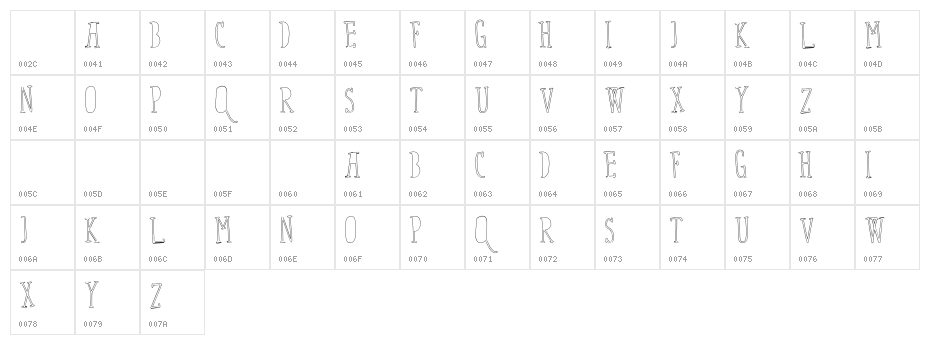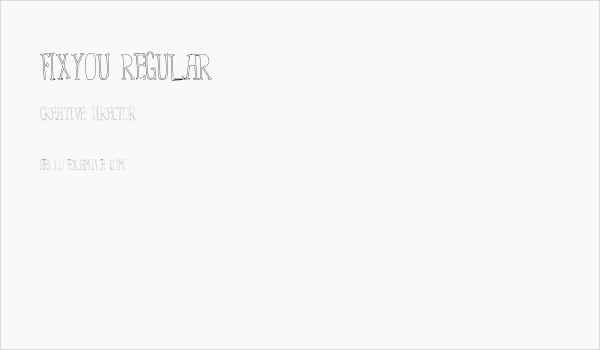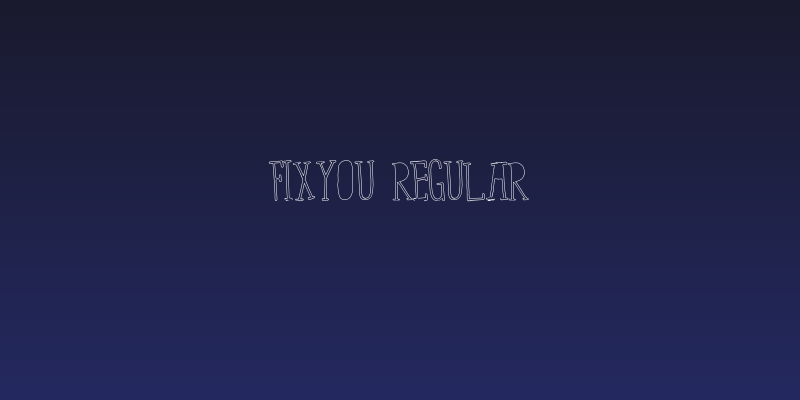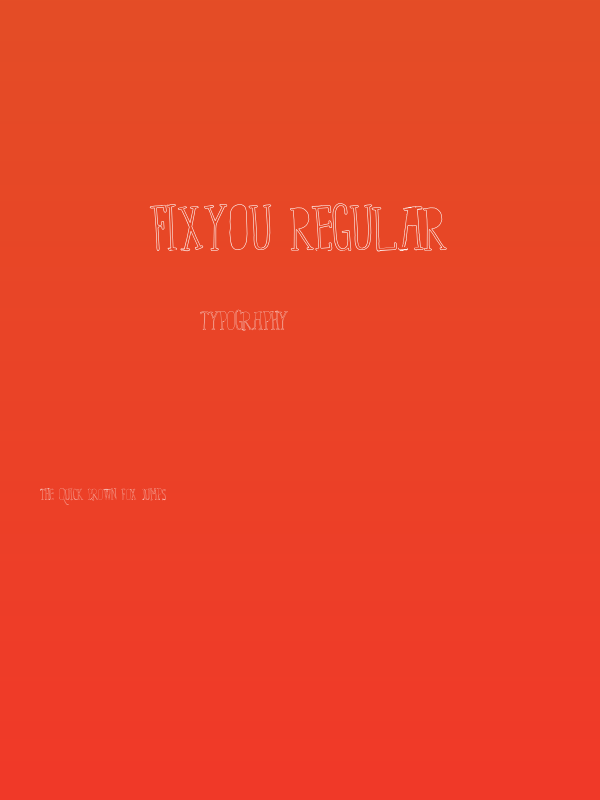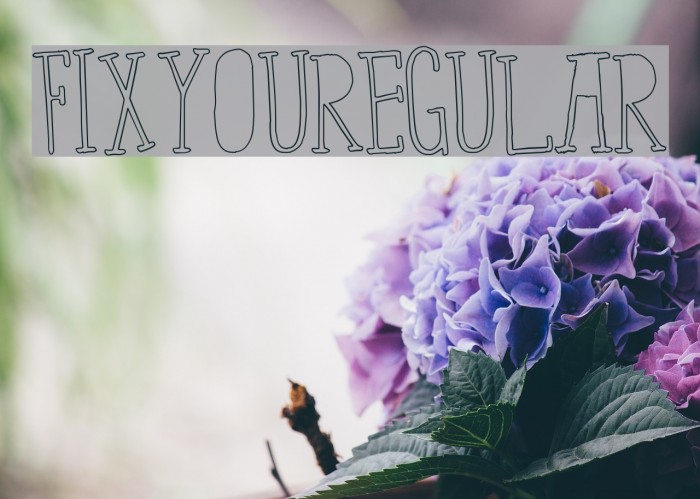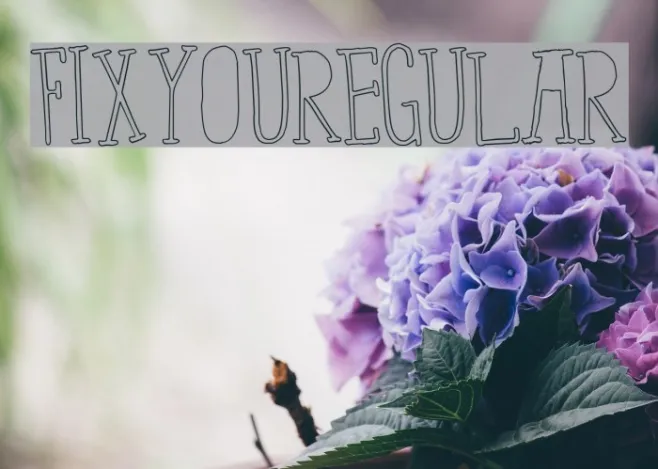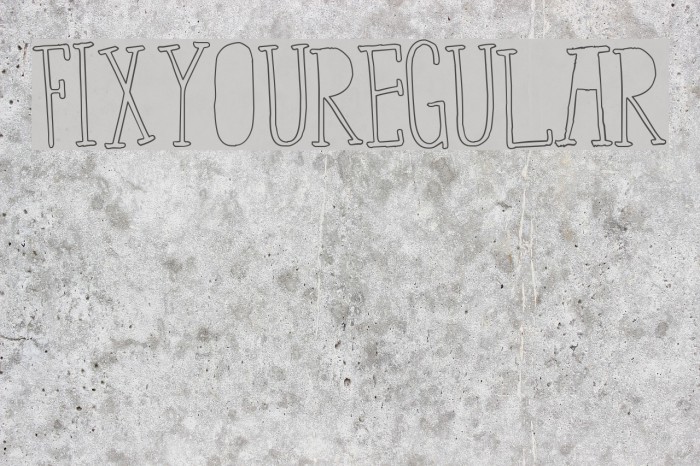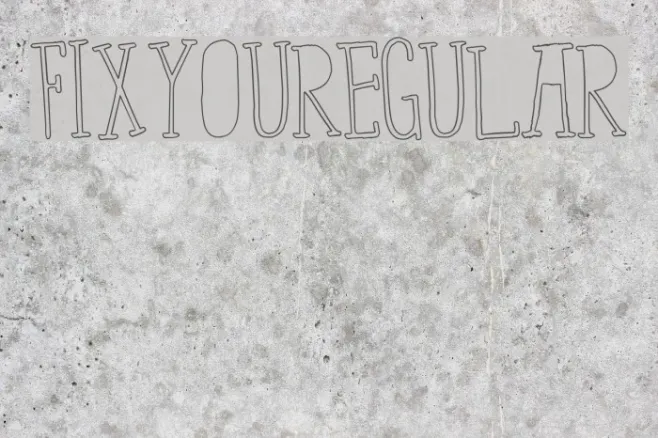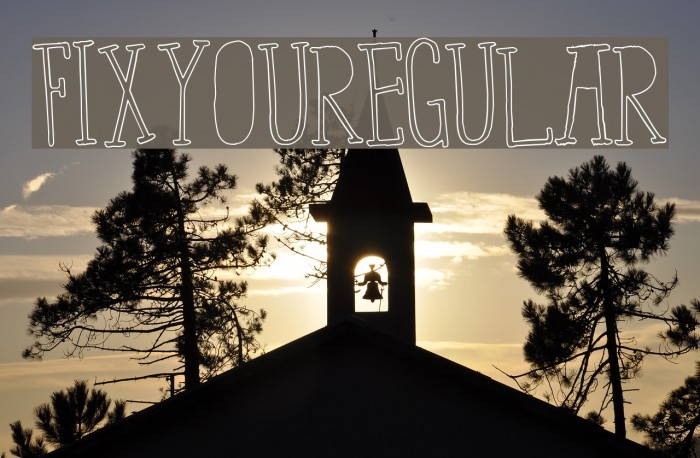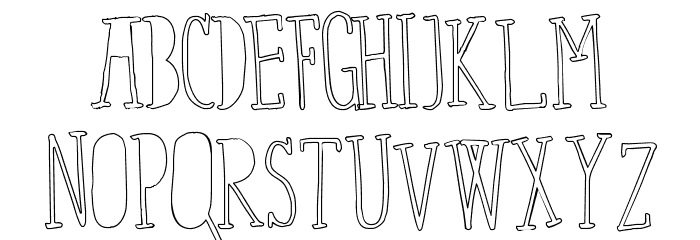
FixYou-Regular Font
FixYou-Regular Description
This font features a playful and whimsical design with a hand-drawn aesthetic. The characters are tall and narrow with uneven strokes, giving them a quirky and artistic feel. The uppercase letters are particularly distinctive, with exaggerated serifs and a slightly irregular baseline that adds to the font's charm. The lowercase letters maintain the same whimsical style, ensuring consistency throughout. The numbers and special characters are crafted with the same attention to detail, making this font suitable for creative and informal projects.
| Proposed Projects | Ideal for children's books, greeting cards, posters, and creative branding projects. |